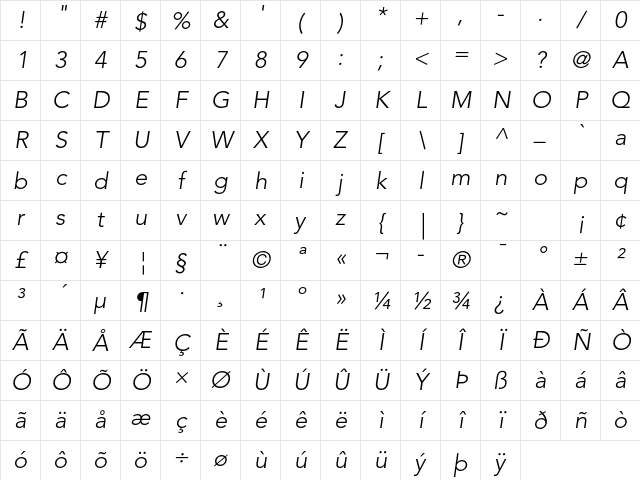
Complete Avenir LT W04 35 Light Italic glyph index. Displaying only characters natively supported by Avenir LT W04 35 Light Italic font.
Avenir LT W04 35 Light is a composed and adaptable typeface that performs quietly and consistently across a wide range of design contexts. The slanted form adds forward momentum and visual energy. Its slender proportions lend an understated elegance to any composition.
Pro Tip: Use Avenir LT W04 35 Light for emphasis, pull quotes, and subheadings where its slanted energy can add rhythm to the layout.